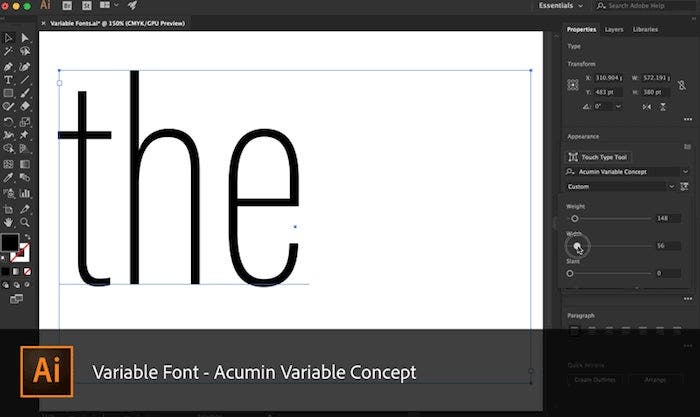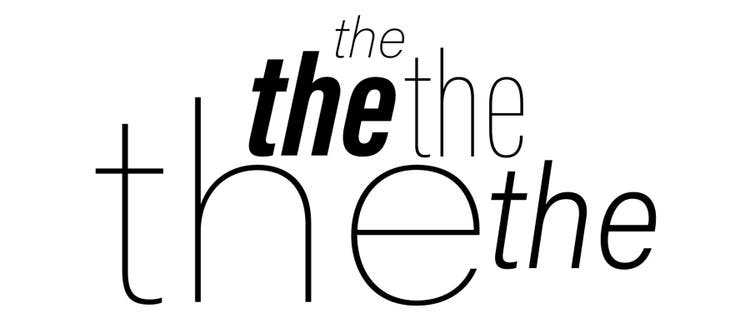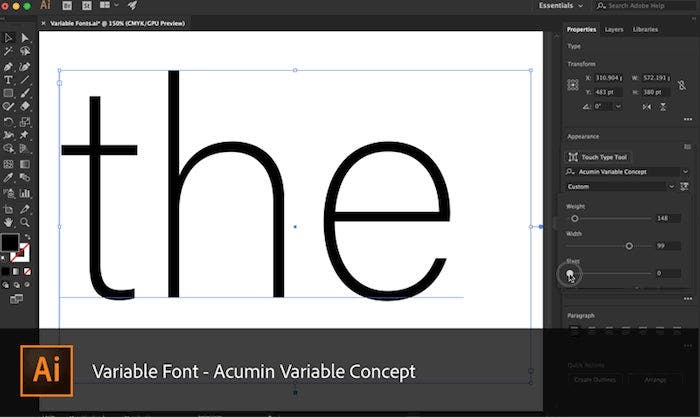
The latest release of Illustrator CC supports variable fonts — an OpenType font format that offers typeface personalization — that includes properties such as weight, width, slant, and optical size, just to name a few.
As more font foundries and typographers adopt this technology, you should see more and more variable fonts available to you in the future. In the meantime, with the latest release of Illustrator, we have packaged a few variable fonts for you to try.
The following variable fonts from Adobe Type are included in the latest update of Illustrator CC:
- Source Sans Variable
- Source Serif Variable
- Source Code Variable
- Acumin Variable Concept
- Minion Variable Concept
- Myriad Variable Concept
Now, what can you do with these fonts?
Type weights
Variable fonts let you adjust all sorts of custom attributes. While the attributes depend on what font you’re using and what the typographer originally defined, many fonts allow you to control the weight of your type. The Source, Acumin, Minion, and Myriad fonts let you define the exact weight. Adjusting type weights could be particularly helpful if you’re adapting designs for multiple sizes. Depending on the size of your work, different weights can make a big difference in readability.
Minion also includes an attribute for optical size, which even allows the overall design of the text to be optimized for the scale of your text, from small caption sizes to large display settings.
Type widths
You may have used kerning or tracking to adjust the spacing of your copy. But with some variable fonts, like Acumin or Myriad, you can define the width of your type. So instead of just being able to manipulate the spacing of your copy, you can now adjust the character width. No longer do you need to stick to predefined settings like condensed; you now have full control over your type. If you’re working with documents that require a lot of adjustments, adjusting the width can help you improve readability in your layouts.
The other use case is headlines. Adjusting widths can be another tool in your arsenal, along with tracking and kerning, to eliminate orphans in your headlines.
Type slant
Influenced by calligraphy, italics have been used to emphasise key points in a printed text or when quoting a speaker to show which words they stressed. With existing fonts, you were limited in degree to which the font angled or slanted. Variable fonts like Acumin allow you to adjust the angle of the slant.